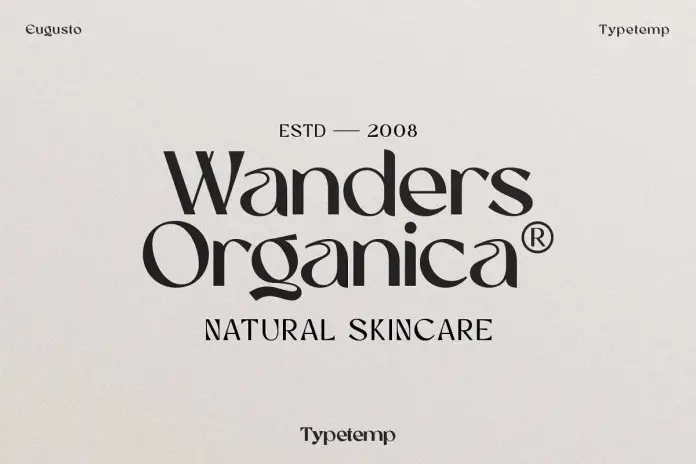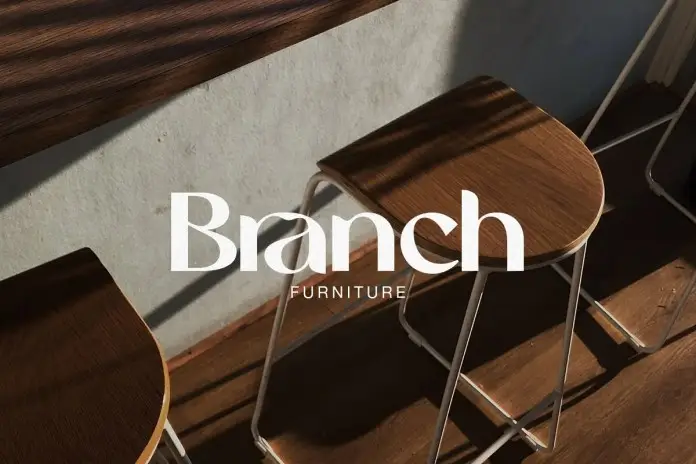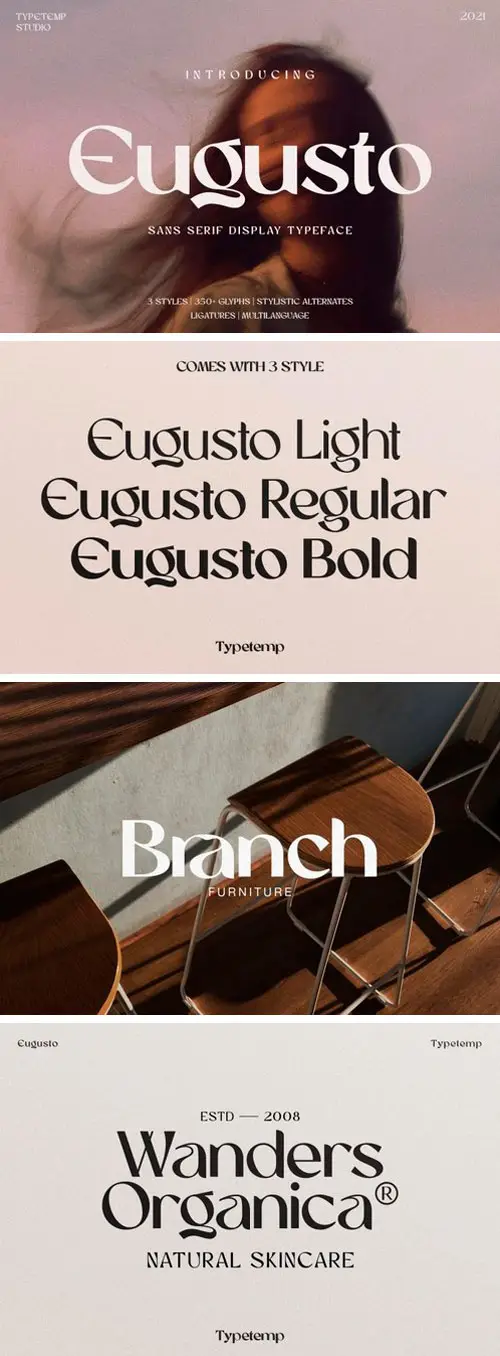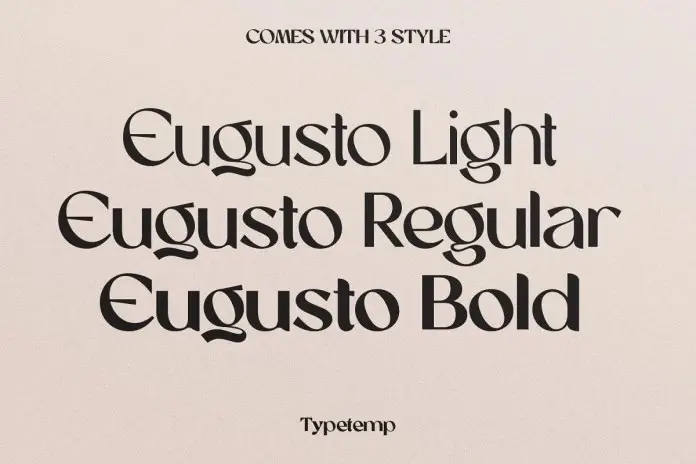
Eugusto Display Font
The Eugusto Display Font is a striking typeface designed to make a bold statement in any project. With its unique character shapes and elegant curves, this font is perfect for branding, logos, and eye-catching headlines.
• Stylish display font with a modern aesthetic
• Available in multiple weights for versatile use
• Includes uppercase and lowercase letters, numbers, and special characters
• Ideal for use in print materials such as posters, flyers, and business cards
• Perfect for digital applications including websites and social media graphics
• Utilize in UI design to create engaging interfaces